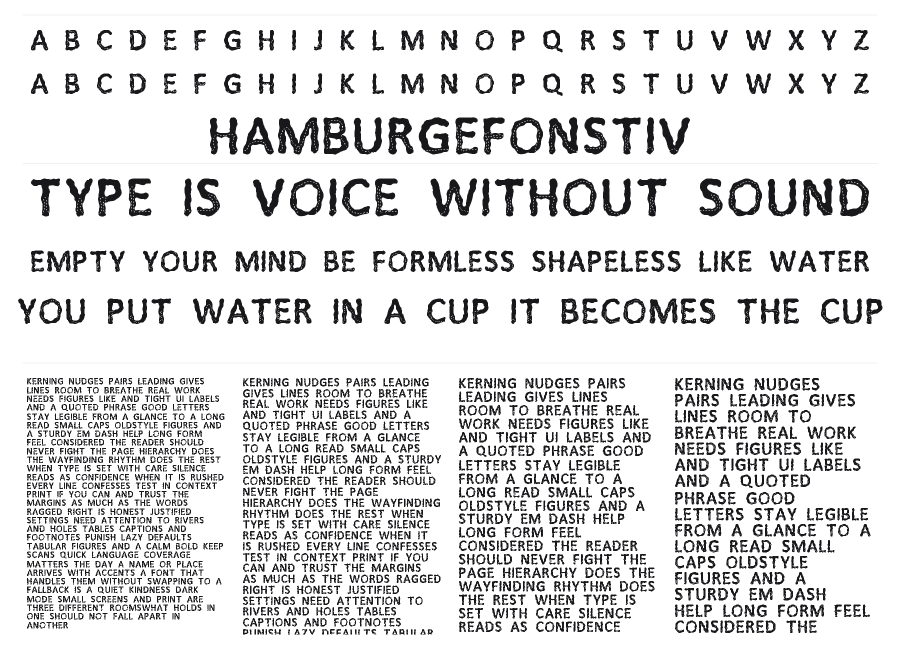
Lost in the Fontrest
Lost in the Fontrest is a worn, trail-marker display font with rough, eroded edges on every character. Designed around the aesthetic of hand-carved path signs and illustrated maps, it carries the texture of the outdoors in its very outlines. It comes in two weights, Bold and Roman, and covers uppercase letters only.